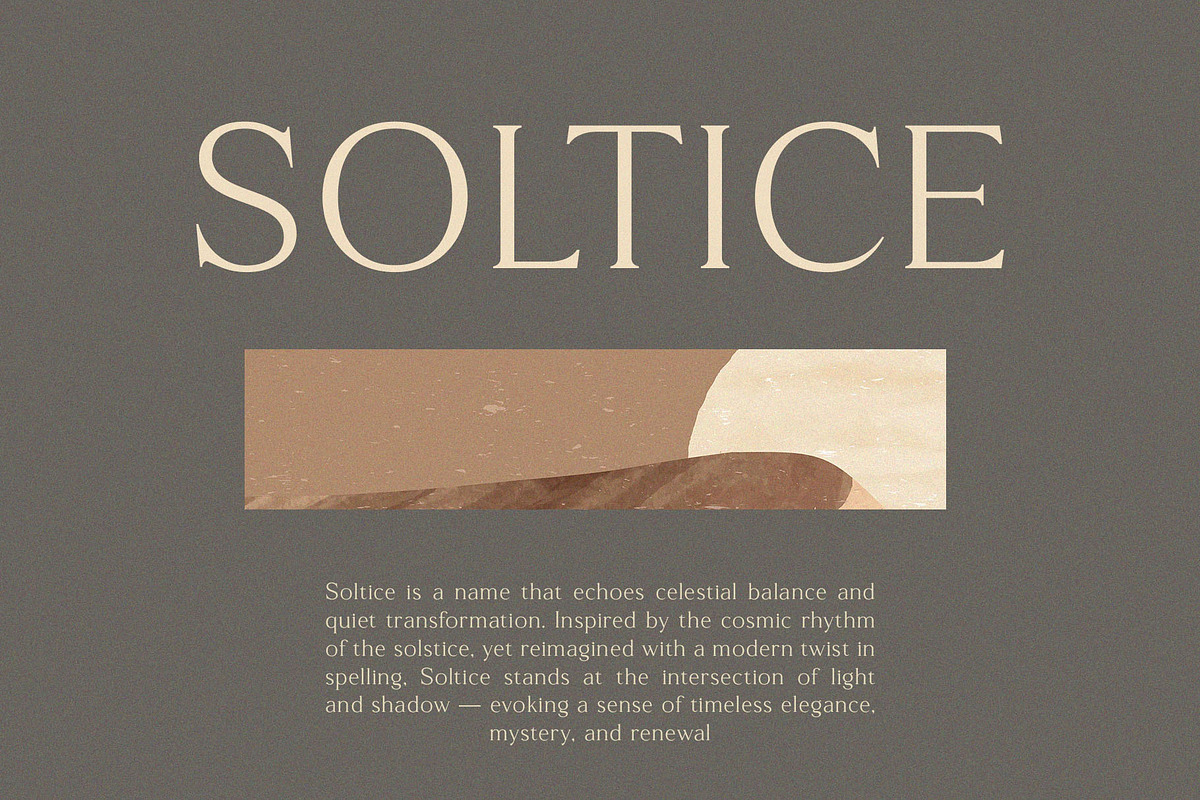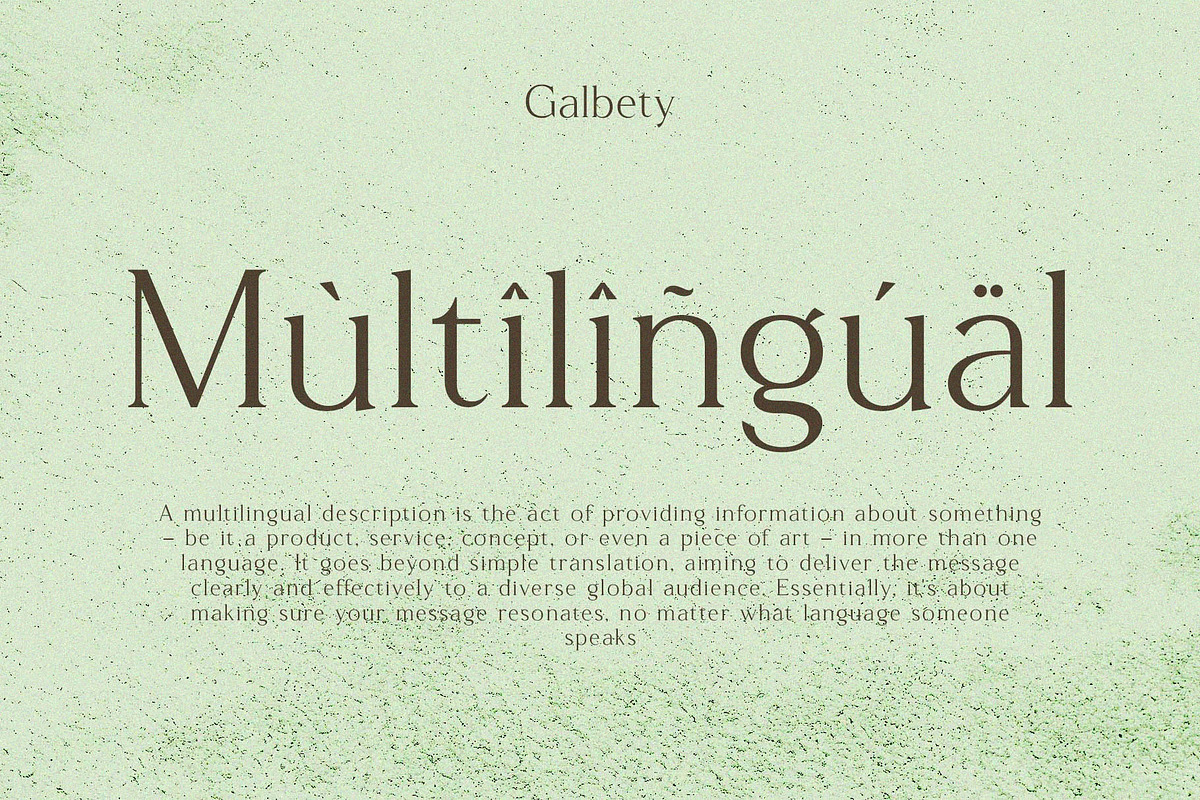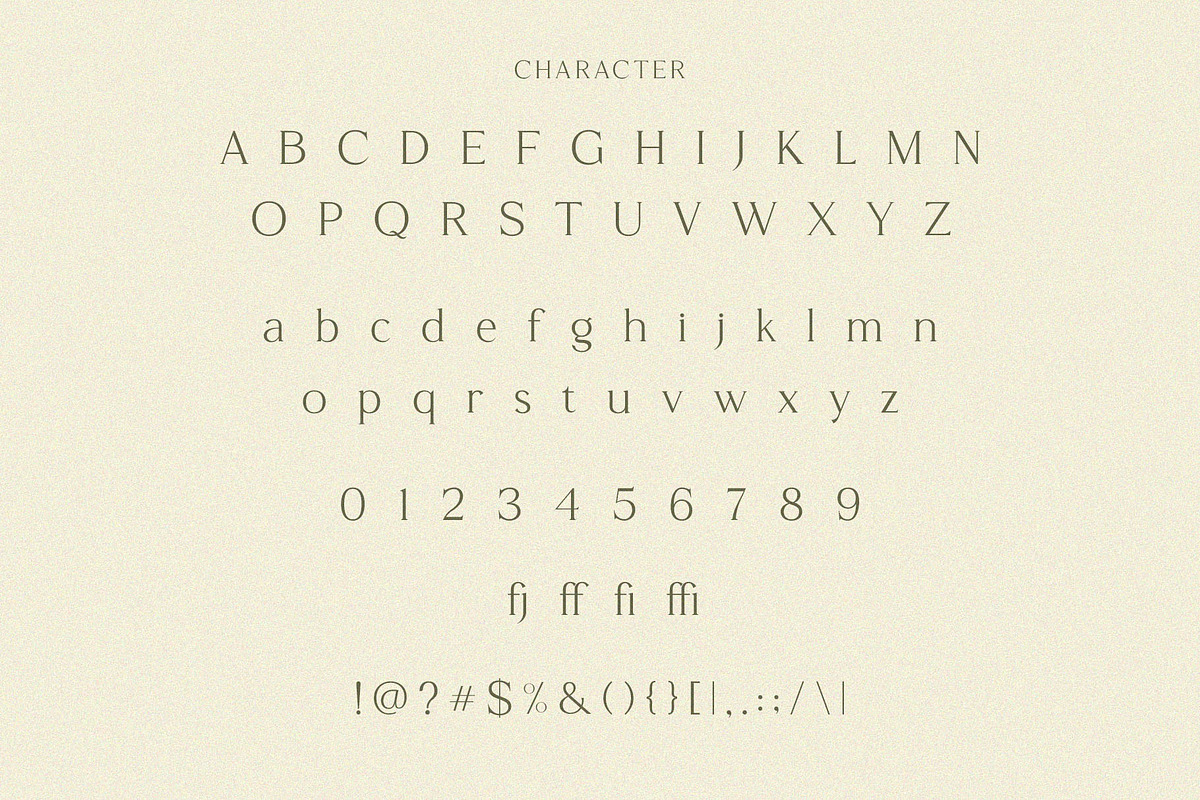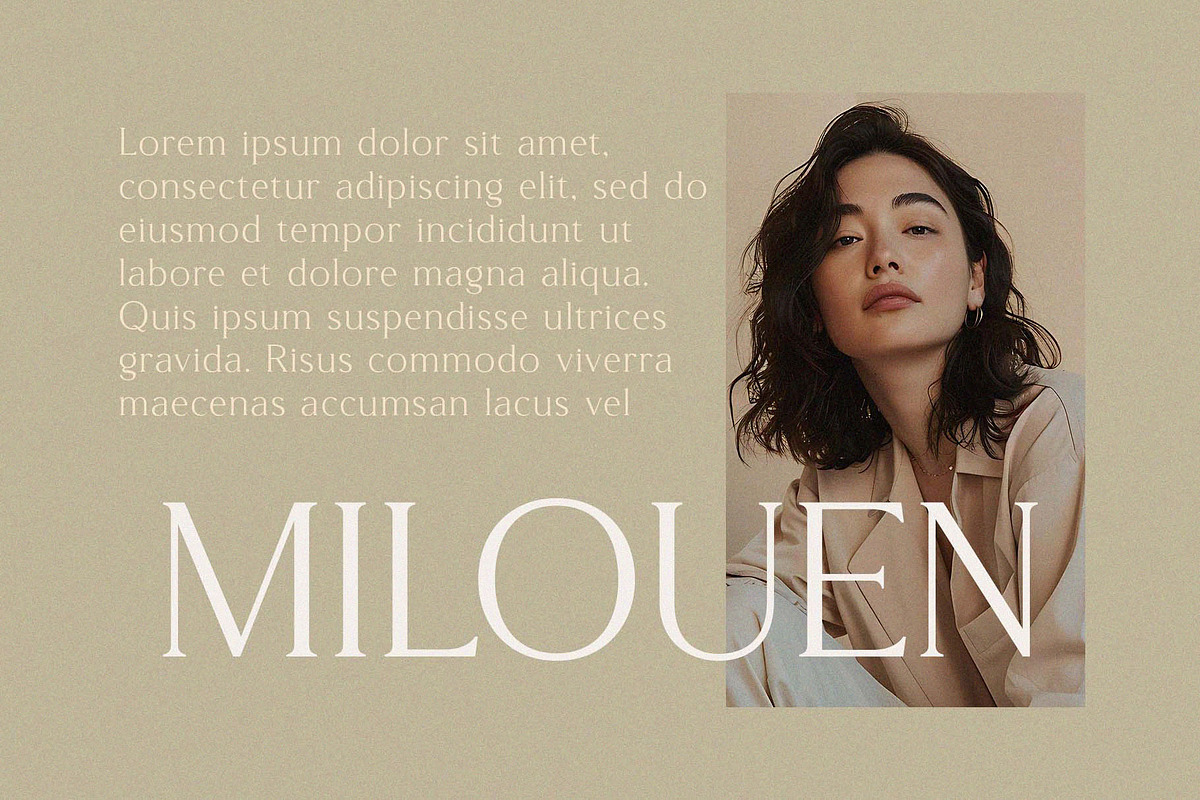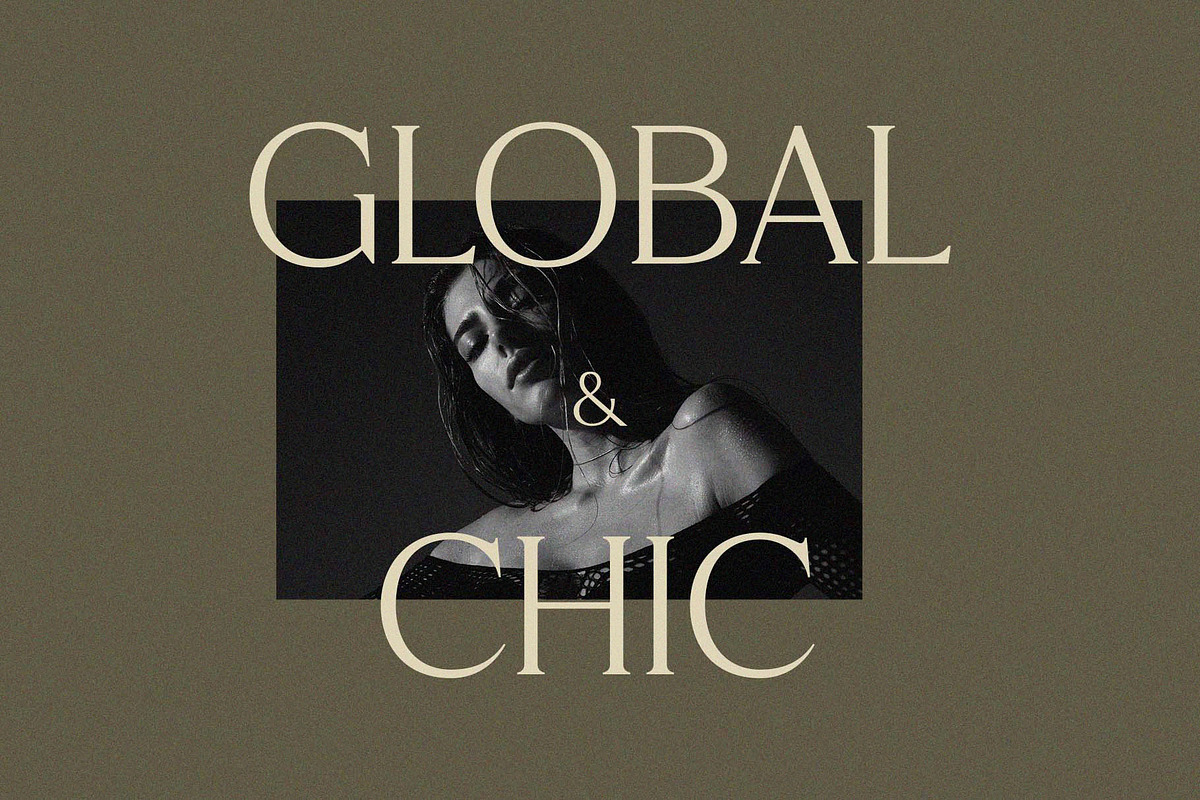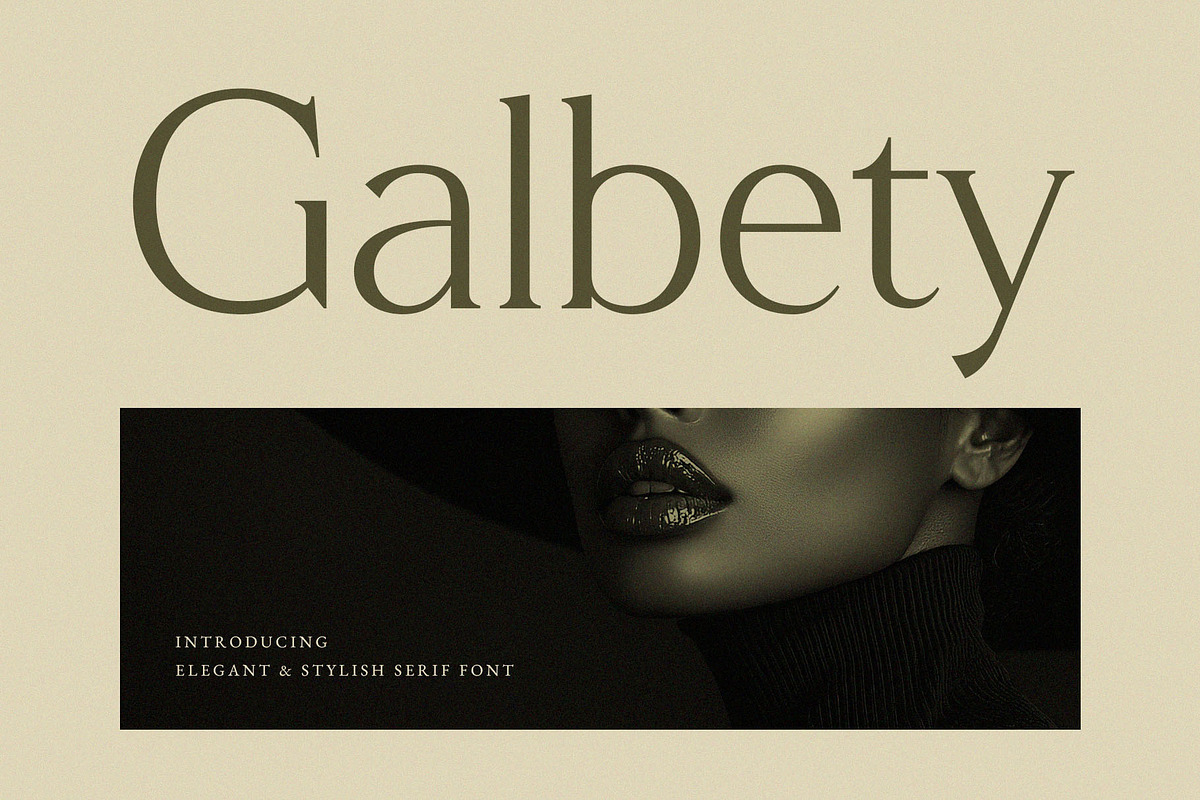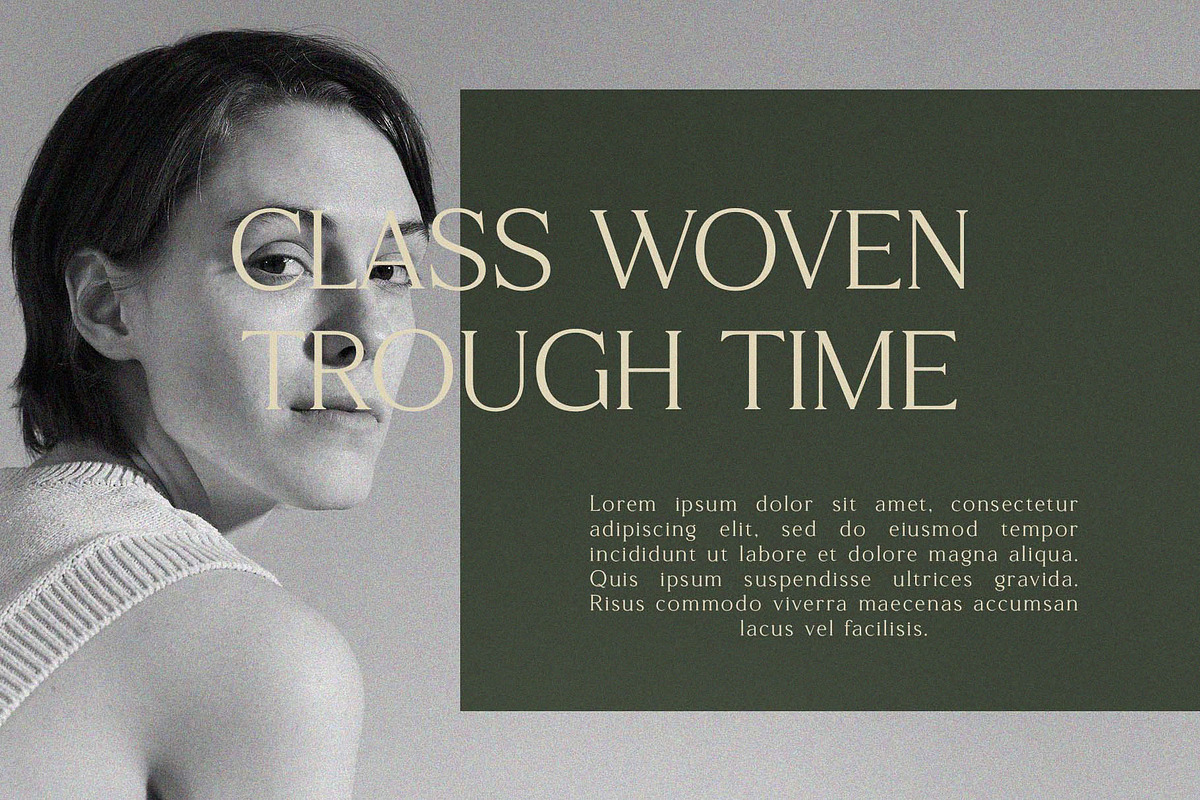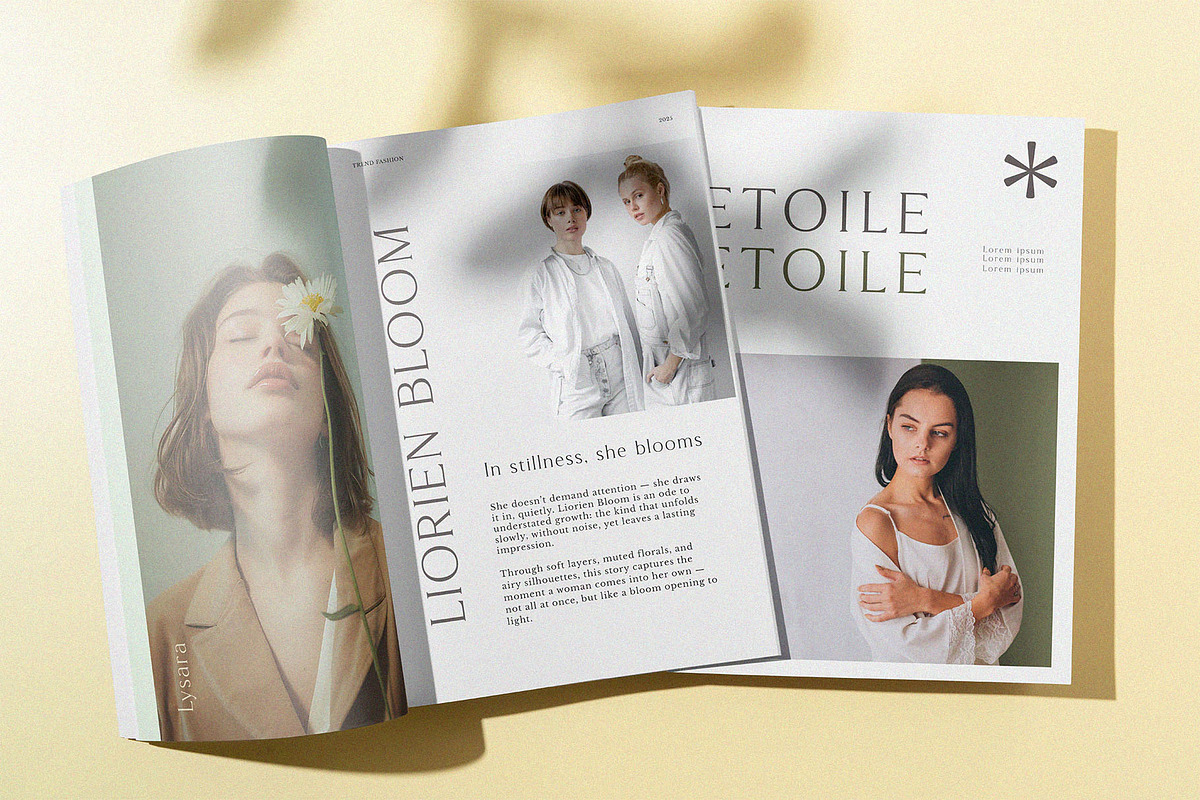
Galbety – Stylish & Elegant Serif
Introducing Galbety Elegant Serif Font. Galbety is a modern and classy typeface, best used as a display for headings, logos, branding, magazines, product packaging and invitations. Galbety come with clean lines and smooth curves give any project an extra touch of class.